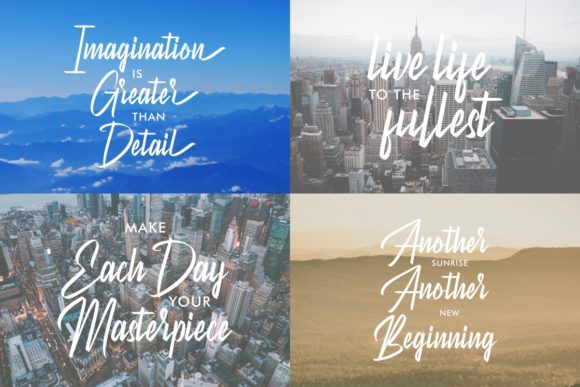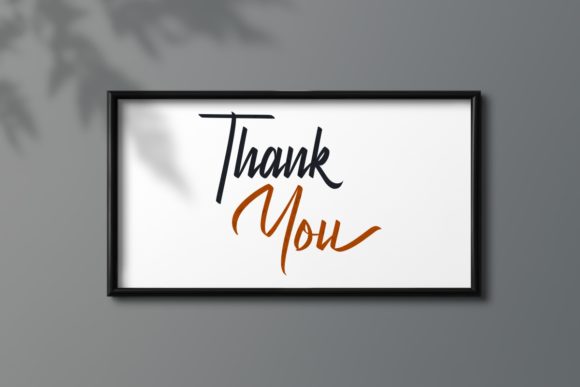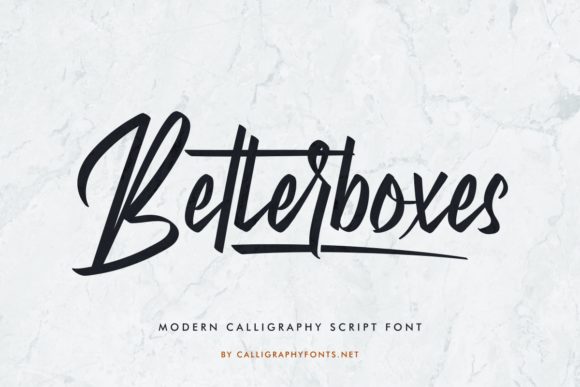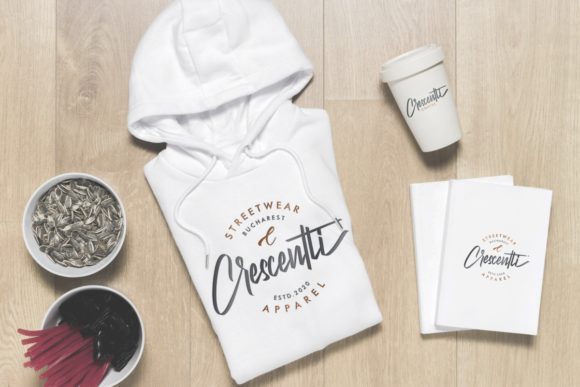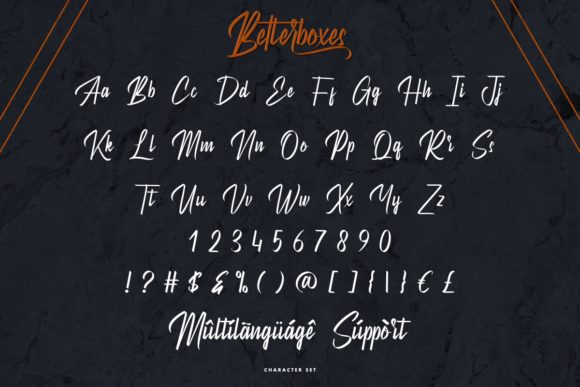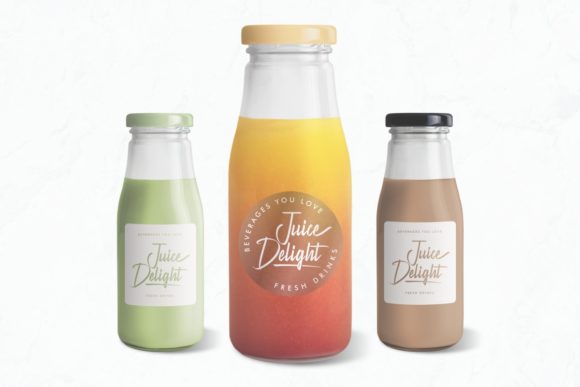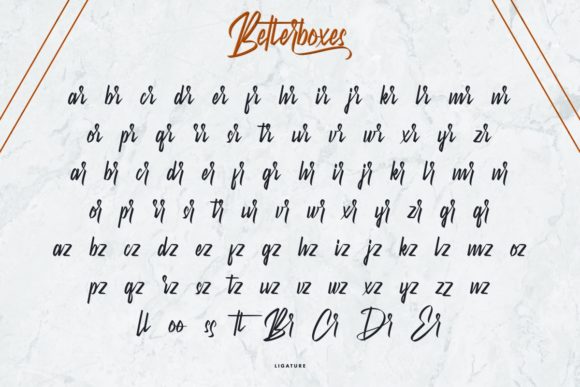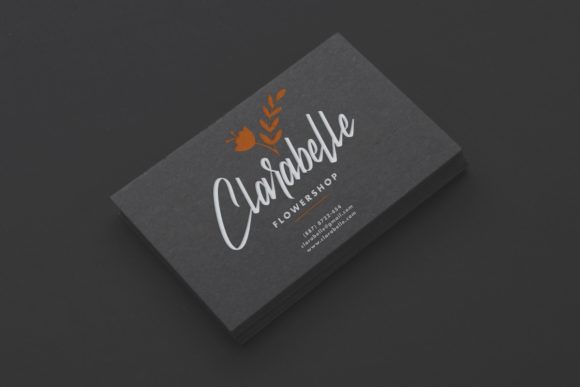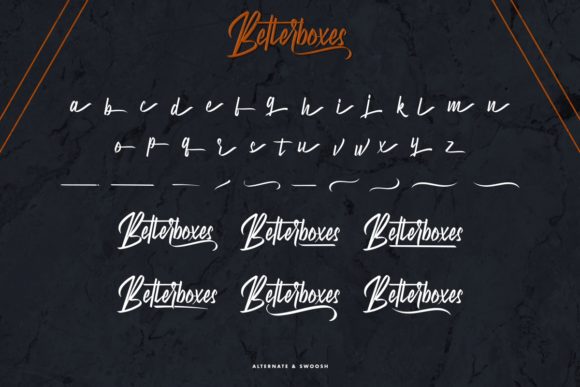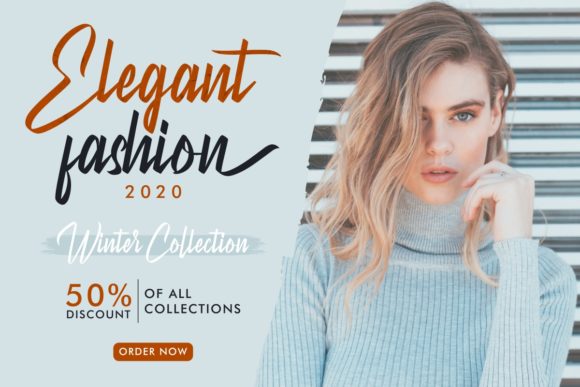
About Betterboxes Font
Betterboxes is a modern brush calligraphy font that exudes strength, confidence, and dynamic energy. With its bold and expressive letterforms, this font adds a touch of nostalgia and character to your designs.
The brush strokes in Betterboxes create a sense of movement and liveliness, making it perfect for projects that require a bold and impactful look. Whether you’re designing logos, branding materials, posters, or social media graphics, Betterboxes will make a statement and grab the viewer’s attention.
One of the advantages of Betterboxes is its versatility. It can be used in a wide range of design applications, from typography-based designs to headlines and titles. The strong and confident nature of the font makes it particularly suitable for projects that aim to evoke a sense of excitement and energy.
With its PUA encoding, Betterboxes allows easy access to all of its glyphs and swashes. This means you can easily customize and embellish your designs with additional decorative elements and variations. This flexibility gives you the freedom to create unique and personalized designs that truly stand out.
Whether you’re working on digital designs, print materials, or any other creative project, Betterboxes will bring a modern and captivating feel to your work. Its bold and dynamic style will add a touch of nostalgia and character, making your designs more memorable and impactful.
Incorporate Betterboxes into your design toolkit and explore its potential to enhance your projects. Let its strong and confident presence elevate your designs and bring them to life with a nostalgic charm and dynamic energy.